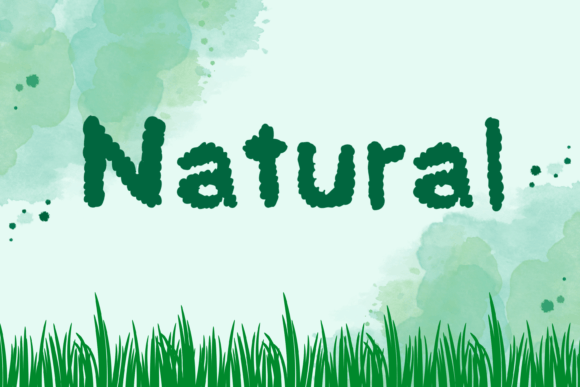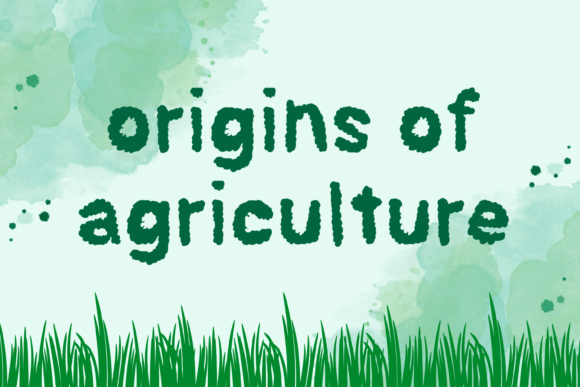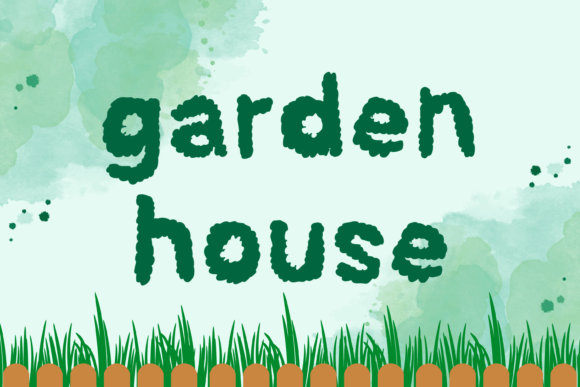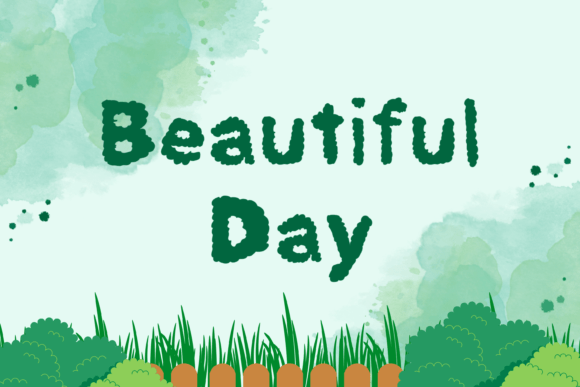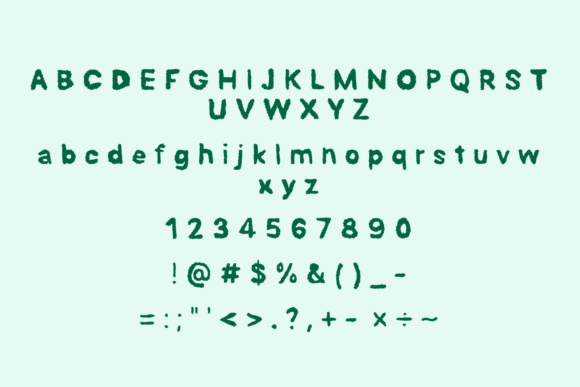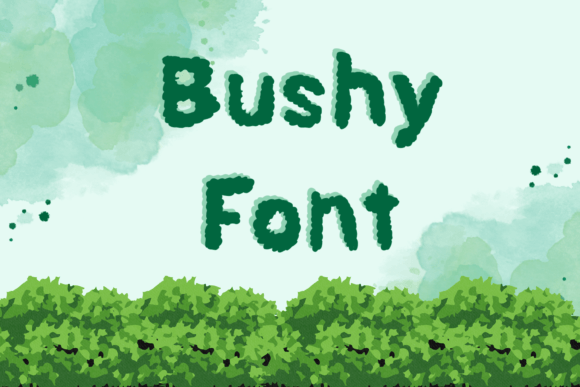
Bushy Font: The Perfect Decorative Font for Nature-Inspired Projects
Are you a designer or crafter looking for a unique and eye-catching font to add a touch of nature to your projects? Look no further than the Bushy font! This decorative font is perfect for projects related to nature, agriculture, and greenery, and can be used on a variety of materials, from cards and flyers to banners and book titles.
What is Bushy Font?
Bushy font is a carefully crafted decorative font that features bold, leafy strokes and a playful, organic feel. The font is designed to evoke the natural world, with each letter and symbol carefully shaped to resemble foliage and greenery. The result is a font that is both whimsical and elegant, making it perfect for a wide range of creative projects.
Uses for Bushy Font
So, what can you use Bushy font for? The possibilities are endless! Here are just a few ideas to get you started:
- Cards and invitations: Add a touch of nature to your greeting cards, invitations, and thank-you notes with Bushy font.
- Flyers and brochures: Use Bushy font to create eye-catching flyers and brochures for gardening, agriculture, and outdoor-related businesses.
- Banners and signs: Create beautiful banners and signs for garden centers, nurseries, and outdoor events with Bushy font.
- Book titles and covers: Add a touch of whimsy to your book titles and covers with Bushy font, perfect for nature-themed books and memoirs.
- Social media graphics: Use Bushy font to create engaging social media graphics, such as Instagram posts and Facebook headers, that showcase your love of nature.
Why Choose Bushy Font?
So, why choose Bushy font for your next project? Here are just a few reasons:
- Unique and eye-catching: Bushy font is a one-of-a-kind font that is sure to grab attention and stand out from the crowd.
- Nature-inspired: If you’re working on a project related to nature, agriculture, or greenery, Bushy font is the perfect choice.
- Versatile: Bushy font can be used on a wide range of materials, from digital graphics to print materials.
Tips for Using Bushy Font
Here are a few tips for getting the most out of Bushy font:
- Experiment with colors: Bushy font looks great in a variety of colors, from earthy tones like green and brown to bright and bold colors.
- Mix and match: Don’t be afraid to mix and match Bushy font with other fonts and graphics to create a unique look.
- Pay attention to size: Bushy font can be used at a variety of sizes, but it’s particularly effective when used at larger sizes to create a bold statement.
Bushy font is a unique and eye-catching decorative font that is perfect for projects related to nature, agriculture, and greenery. With its bold, leafy strokes and playful, organic feel, Bushy font is sure to add a touch of whimsy and elegance to your cards, flyers, banners, book titles, social media graphics, and more. So why wait? Download Bushy font today and start creating your own nature-inspired masterpieces!